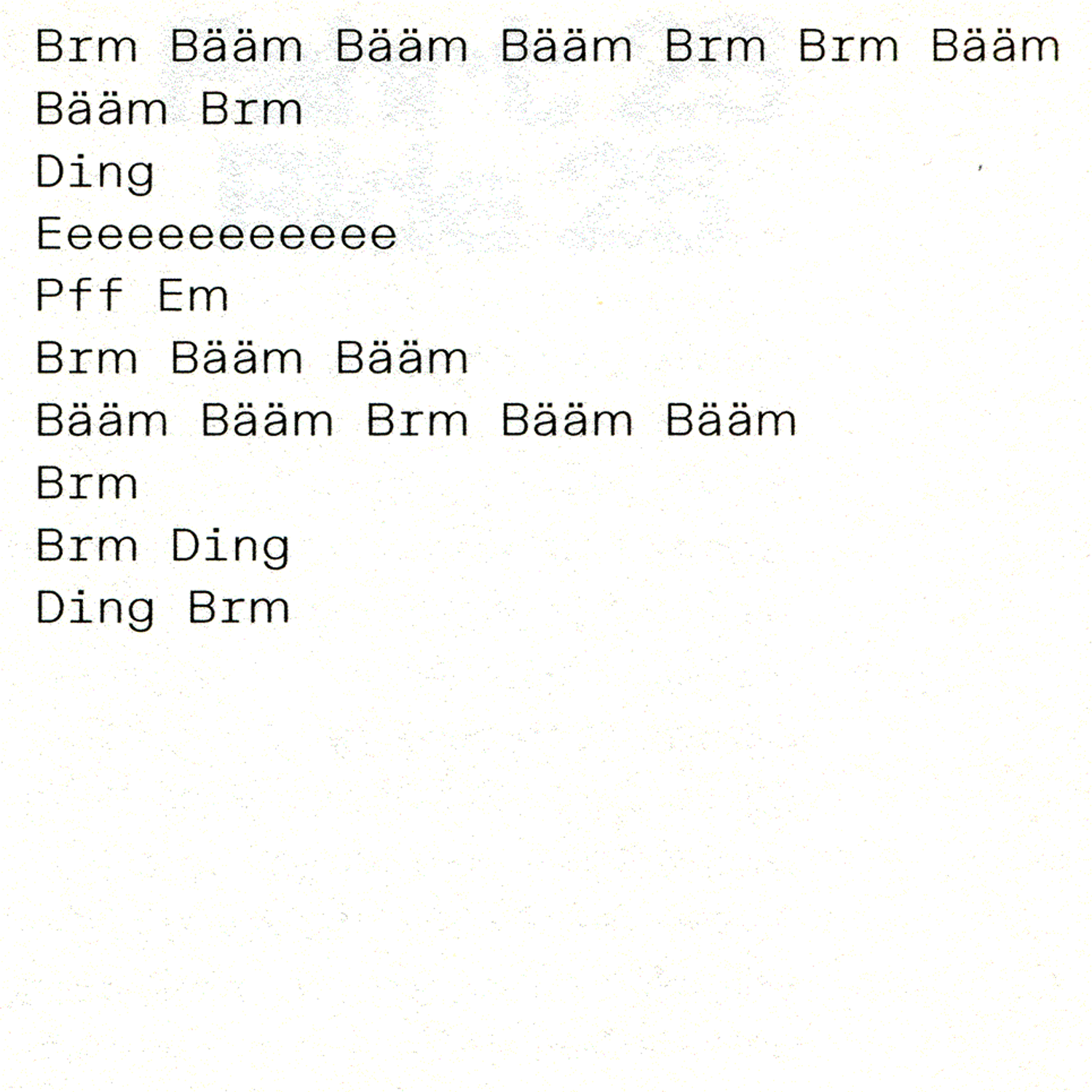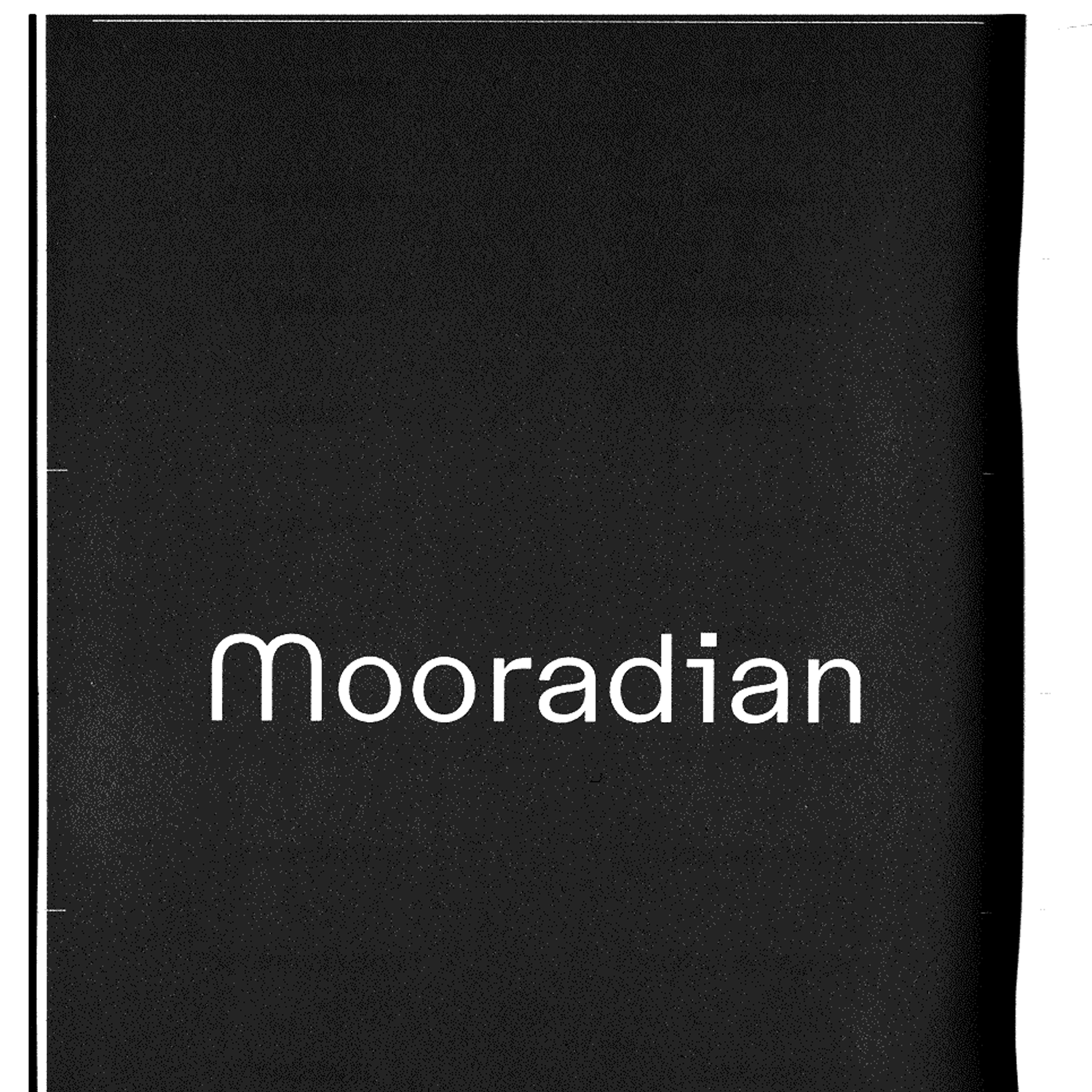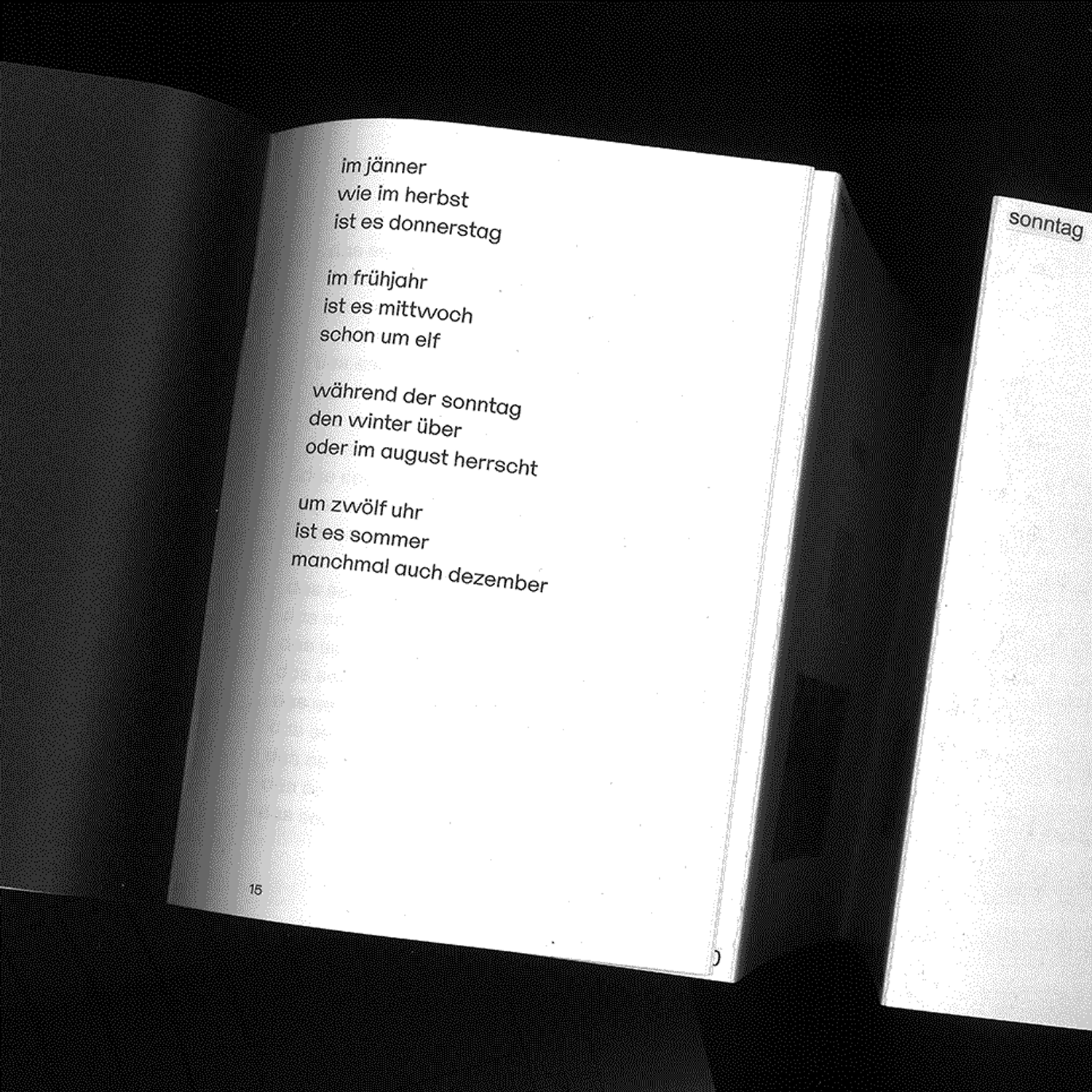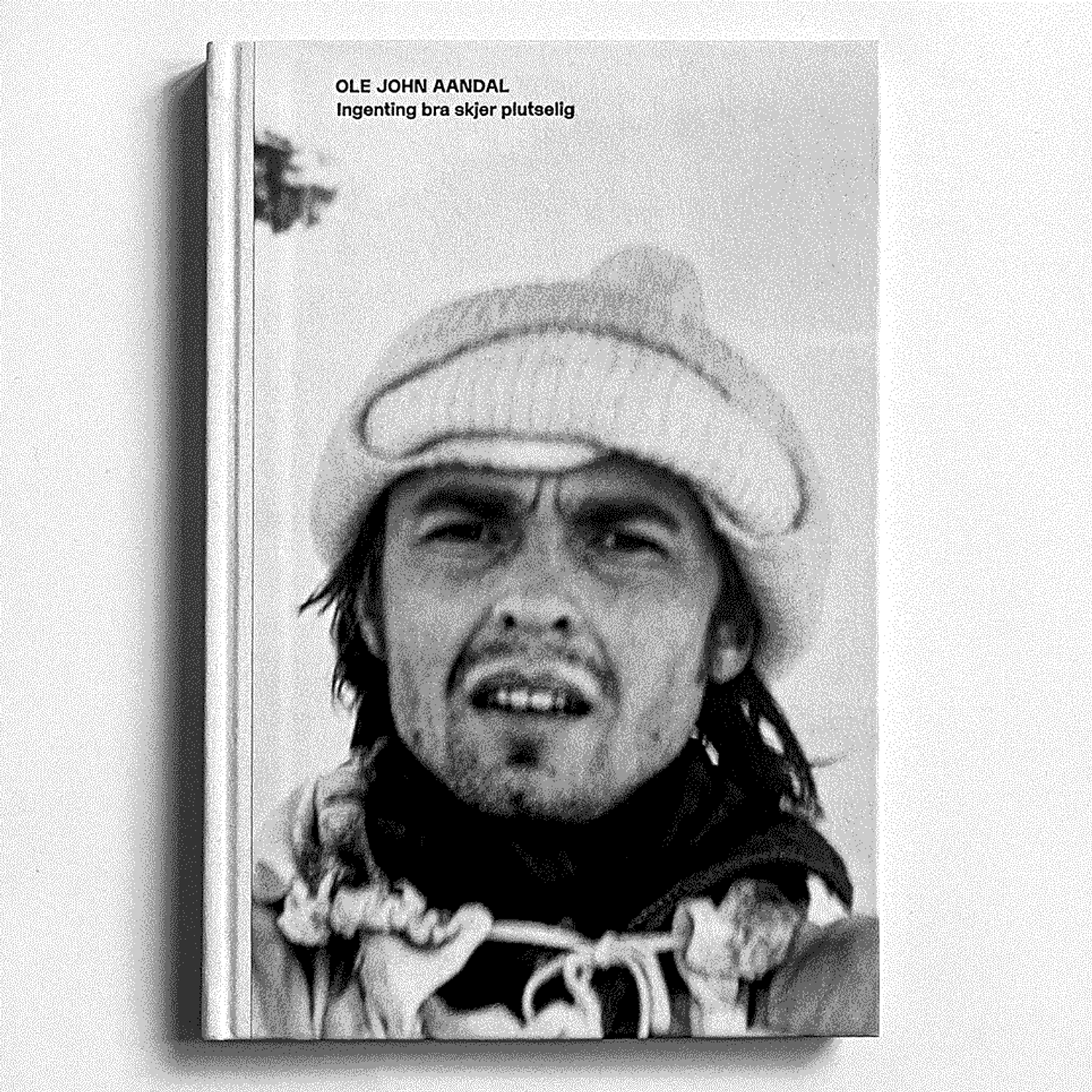
Acrylic was initially drawn from samples of the Frenchiest of all Swiss Sans-Serifs, namely Brasilia designed by Albert Boton for Hollenstein Phototypo in the late 1950s. Incrementally removed from the historical source in both its aesthetics and ideology, Acrylic aims to combine a pragmatic with a critical attitude.
Its three multiplexed sub-families offer a rational foundation in accordance with post-war modernists’ aspiration for transparency and functionality. Yet, Acrylic questions the self-confidence of the seemingly immovable monument that is the Neo-Grotesque genre by introducing a moment of existential uncertainty.
Acrylic Ortho (8 styles) Acrylic Pseudo (8 styles) Acrylic Mono (8 styles)
Opentype features
Standard Ligatures (liga) + ss03
Case-Sensitive Forms
Proportional Lining Figures (default)
Tabular Lining Figures (tnum, lnum) | Ortho and Pseudo only!
"Undotted Zero" (zero) | Pseudo and Mono only!
Superscript (sups)
Subscript (subs, sinf)
Prebuilt Fractions (frac)
Abritrary Fractions (frac)
Ordinals (ordn)
Baseline Q (ss01)
Schoolbook a (ss02)
Pervert Alternates (ss03)
Skeptic Alternates (ss04) | Pseudo and Mono only!
Nihilist Alternates (ss05) | Pseudo and Mono only!
Dumb Quotes (ss06)
Smart Stuff (ss07)
Practical Subs (ss08)
Smart Arrows (ss09)
White Circled Nums (ss10)
Black Circled Nums (ss11)
Recycling Plastics (ss12)
Brasilia, as shown in "Lettera 2", Haab & Haettenschweiler, 1976.
Referring a pivotal moment in design history, Acrylic attempts to meditate on cultural phenomena emerging from the mid-20th century, an era of great aesthetic, cultural and economic euphoria.
One emblematic example of this enthusiasm can be observed in the extensive use of synthetic materials for consumer products from the 1950s onwards. In his essay on “Plastic” (published as part of “Mythologies” in 1957) Roland Barthes elegantly excavates the prosaic alchemy of these magical substances and their ubiquitous potential. A novelty at the time, these materials have since been deeply embedded into our everyday, modern lives and thus in our cultural DNA.